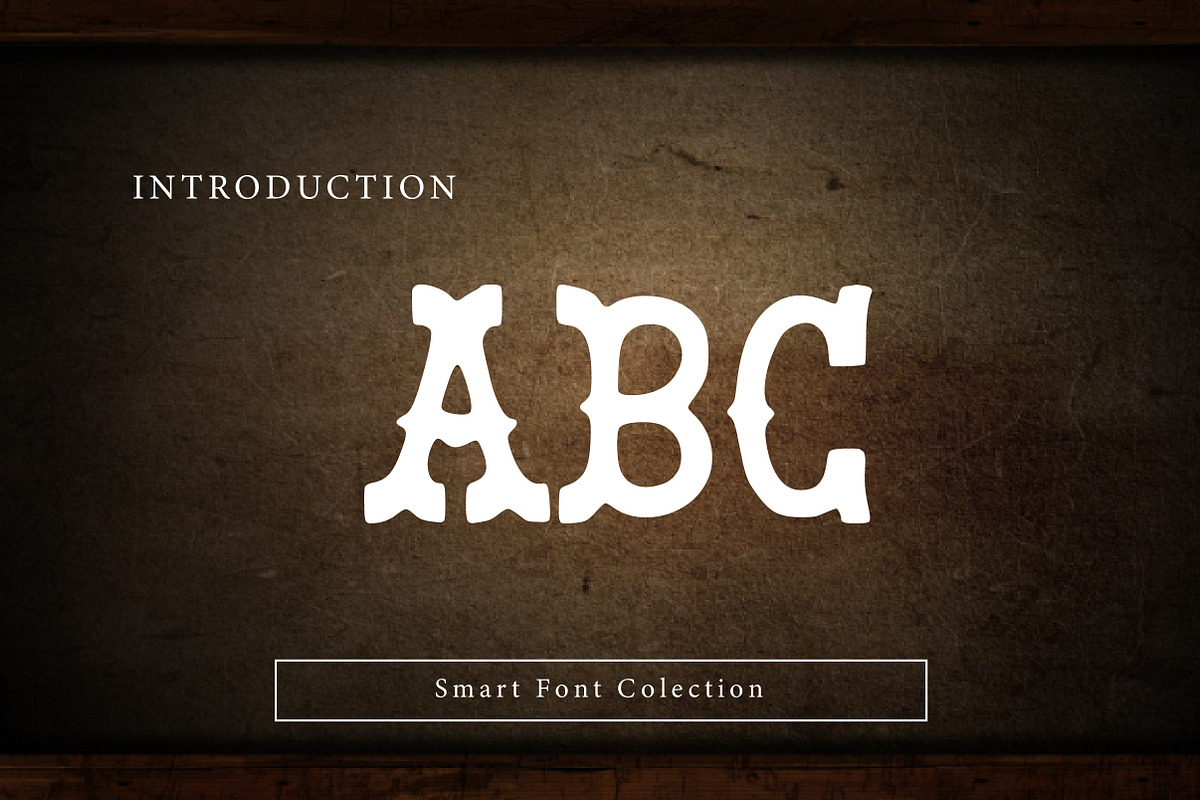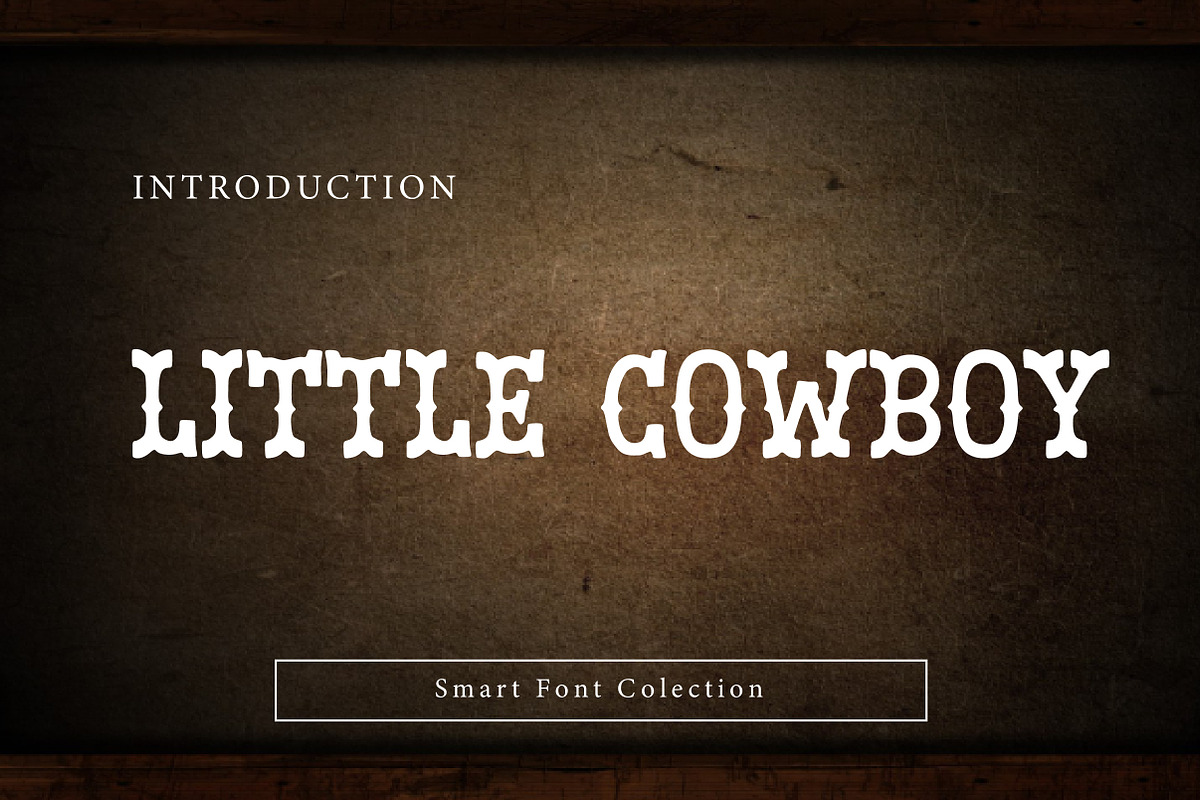
Little Cowboy
Little Cowboy is a playful, bold western display typeface inspired by classic cowboy lettering, vintage wood type, and old-west charm with a fun, friendly twist. Its chunky letterforms, decorative details, and rustic personality make it perfect for kids designs, western-themed projects, posters, logos, packaging, apparel, and playful branding. Little Cowboy combines a nostalgic western feel with a lighthearted tone, delivering strong visual impact and excellent readability for both digital and print use.